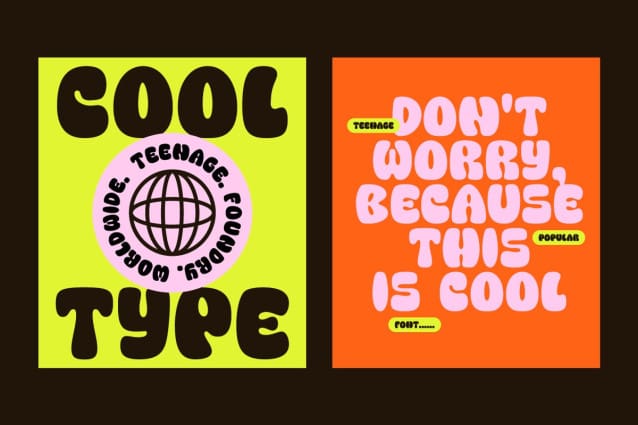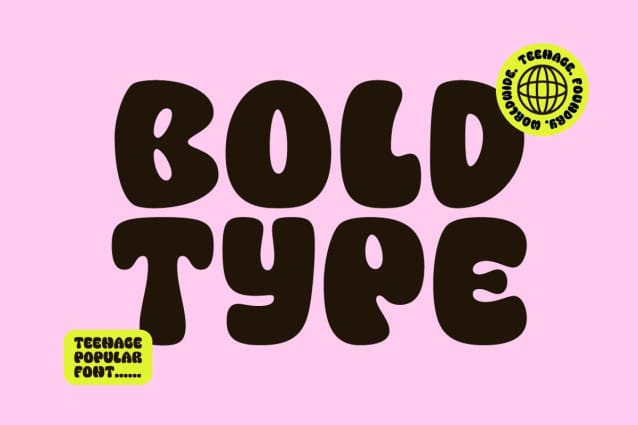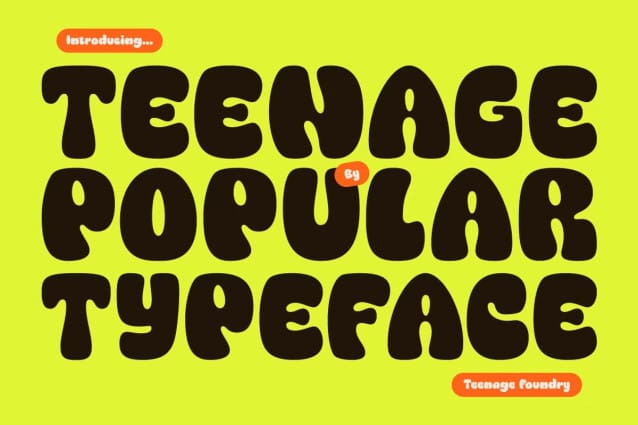
Teenage Popular Font
Teenage Popular Font is a typeface that exudes a combination of modern and retro aesthetics. Characterized by its slightly thick and “fat” appearance, this font has a certain charm that is reminiscent of popular design trends from the past few decades.
With a modern twist, Teenage Popular strikes a balance between nostalgia and contemporary design, making it a versatile choice for a variety of projects that aim to convey a retro yet fresh feel.